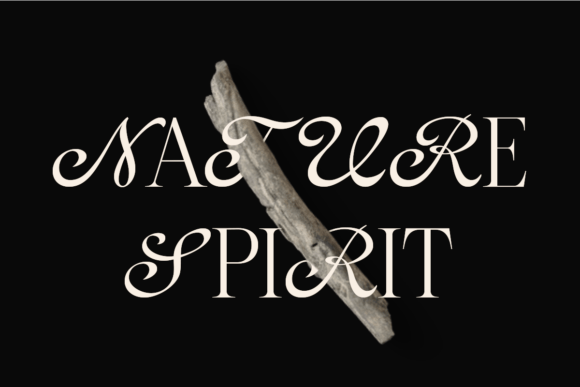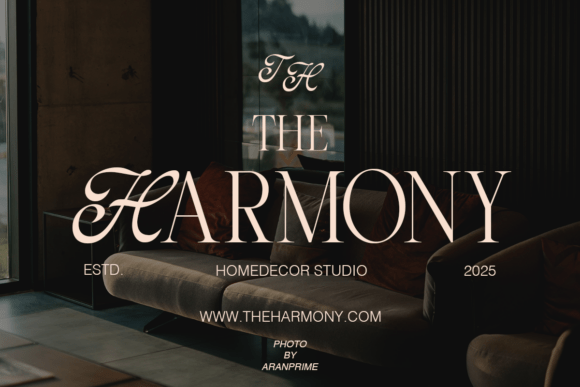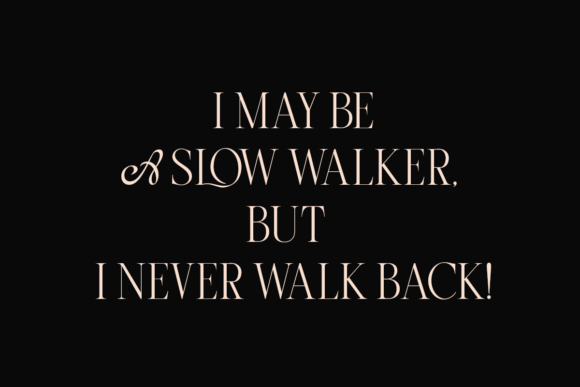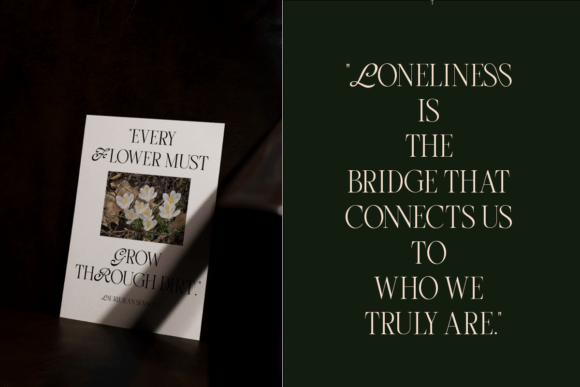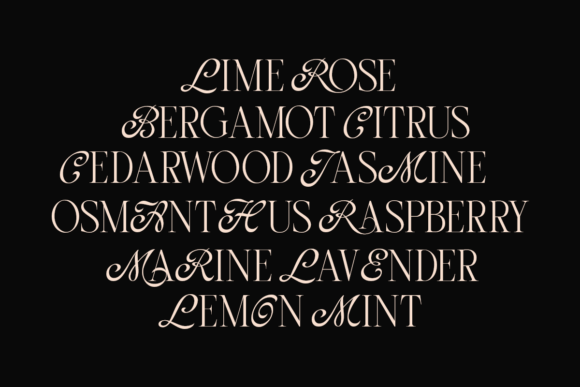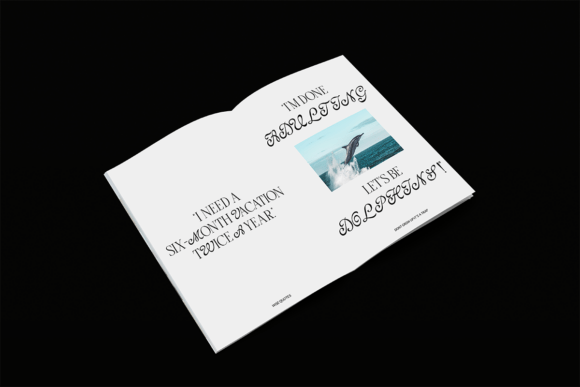
Grimlins Font: Elevate Your Design with Elegance and Luxury
In the world of typography, fonts play a crucial role in setting the tone and aesthetic of a design. For those seeking to add a touch of luxury and elegance to their projects, Grimlins font is an exceptional choice. This mesmerizing serif font seamlessly blends refinement with a hint of sophistication, making it perfect for a variety of design applications.
The Characteristics of Grimlins Font
Grimlins font boasts a refined serif structure that exudes classic charm. Its distinctive feature is the incorporation of graceful swashes, which add an enchanting, classy touch to any design. These swashes not only enhance the aesthetic appeal but also provide a unique flair that can elevate a project from ordinary to extraordinary.
Ideal Applications for Grimlins Font
The versatility of Grimlins font makes it suitable for a wide range of design projects. Some of the ideal applications include:
- Luxury Branding: For brands aiming to convey a sense of luxury and high-end quality, Grimlins font offers the perfect solution. Its elegant appearance can help create a sophisticated brand image.
- Editorial Design: Whether you’re working on a magazine, journal, or any other editorial project, Grimlins font can add a touch of class and refinement to your content.
- Invitations: For special occasions such as weddings, galas, or formal events, Grimlins font can help create invitations that are both elegant and memorable.
- Packaging: When it comes to luxury products, packaging plays a crucial role in setting the tone. Grimlins font can be used to create packaging that reflects the high quality of the product inside.
Crafting Romantic and Ethereal Themes
Grimlins font is particularly well-suited for projects with romantic or ethereal themes. Its enchanting aesthetic can bring a fairytale-like quality to your designs, making them truly captivating. Whether you’re creating a wedding invitation, a fantasy novel cover, or any other project that requires a touch of magic, Grimlins font is an excellent choice.
Why Choose Grimlins Font?
There are several reasons why designers and crafters might prefer Grimlins font over other options:
- Unique Aesthetic: The combination of refined serifs and graceful swashes gives Grimlins font a unique look that can set your designs apart.
- Versatility: Grimlins font can be used in a variety of projects, from luxury branding to editorial design and packaging.
- Ease of Use: Despite its elegant appearance, Grimlins font is easy to read and use in various design contexts.
Tips for Using Grimlins Font Effectively
To get the most out of Grimlins font, consider the following tips:
- Pair with Complementary Fonts: For maximum impact, pair Grimlins font with fonts that complement its elegant aesthetic. Sans-serif fonts or other serif fonts with a simpler design can create a nice contrast.
- Adjust Swashes: Don’t be afraid to adjust the swashes to fit the style of your project. You can also choose to remove them for a more subtle look.
- Consider Color: Choose colors that enhance the luxurious feel of Grimlins font. Metallic colors, deep blacks, and rich jewel tones can all work well.
Grimlins font offers a unique blend of elegance and luxury that can elevate any design project. Its refined serif structure and graceful swashes make it perfect for a variety of applications, from luxury branding and editorial design to invitations and packaging. Whether you’re crafting a romantic theme or an ethereal fairytale-inspired project, Grimlins font brings an irresistible charm that is sure to captivate your audience. By incorporating Grimlins font into your designs, you can create projects that are not only visually stunning but also convey a sense of sophistication and high-end quality.